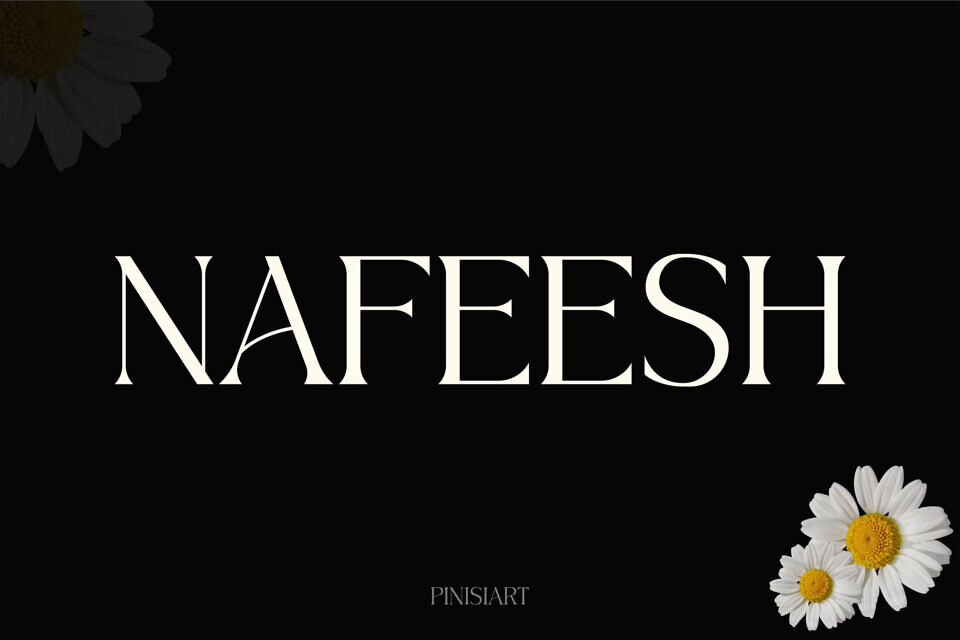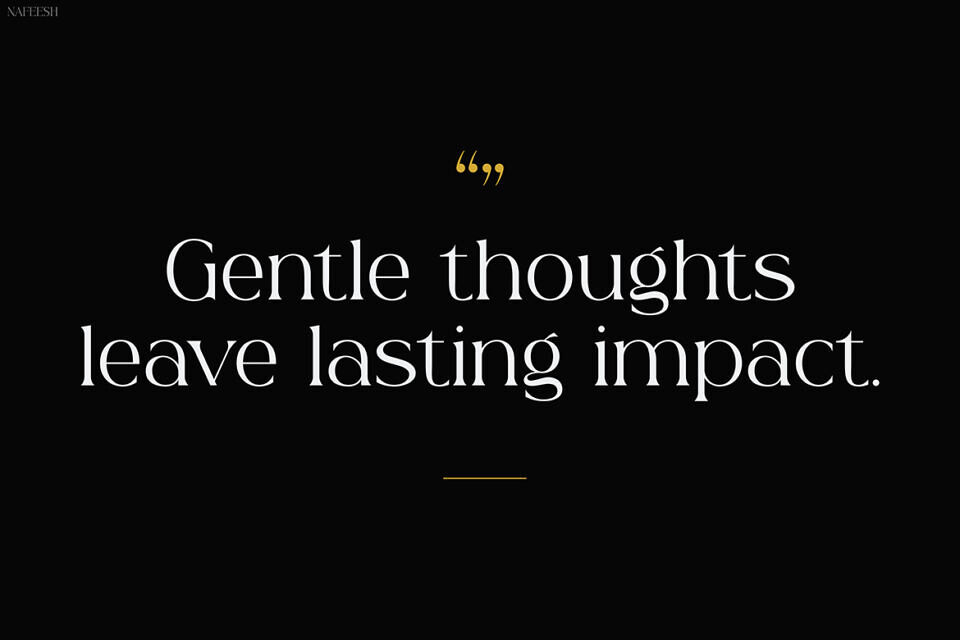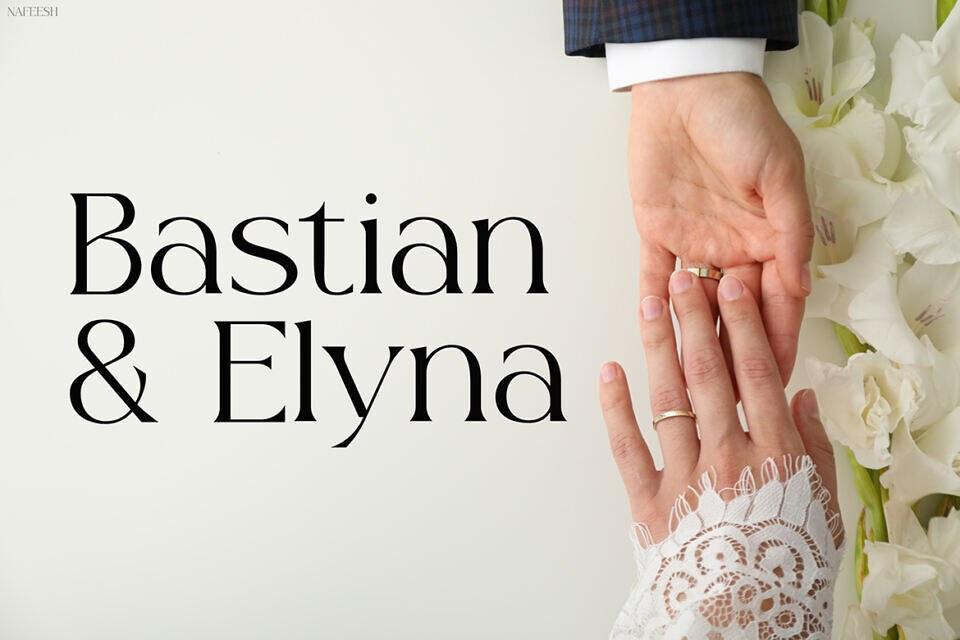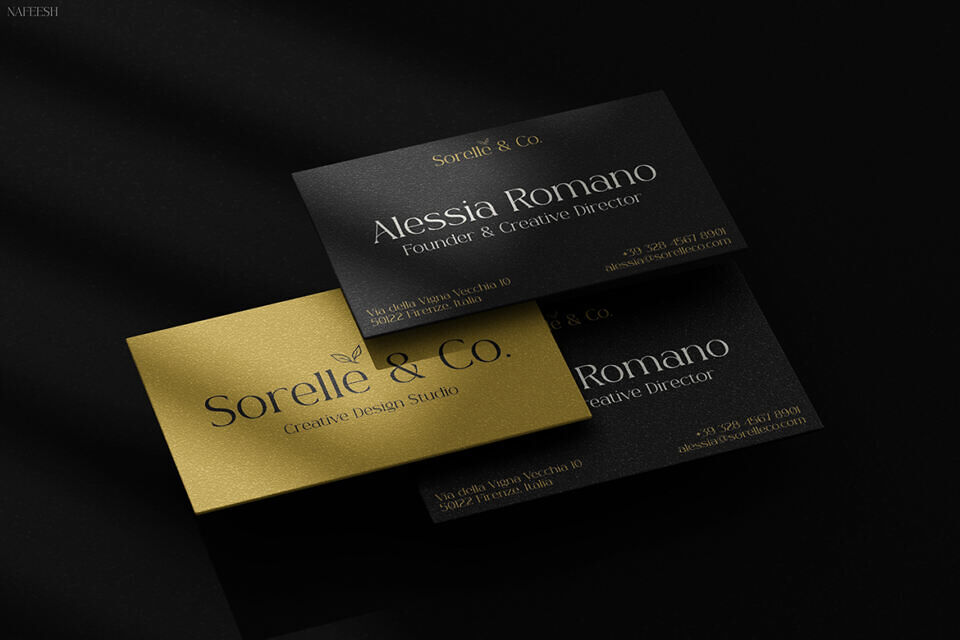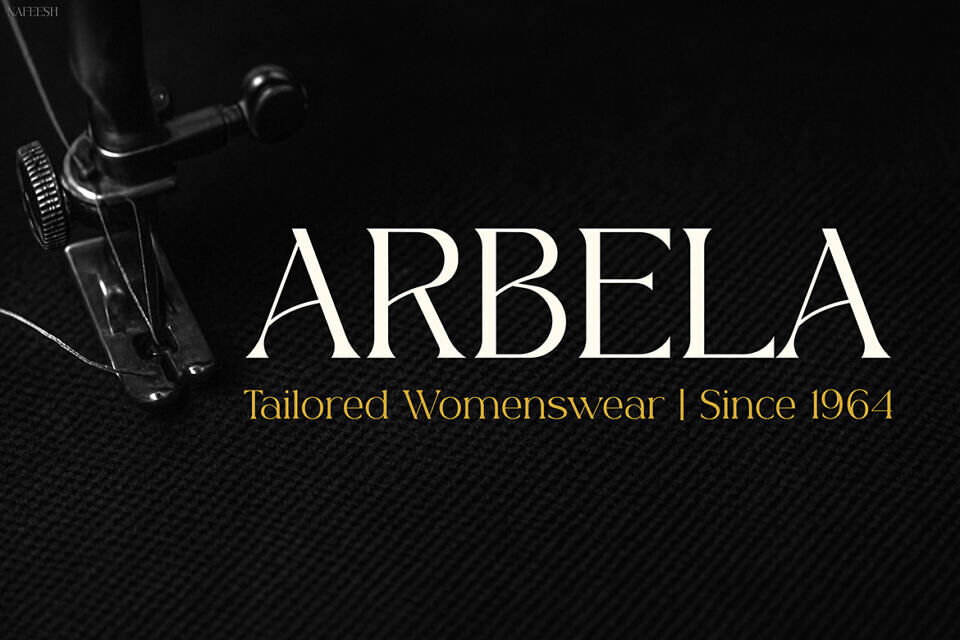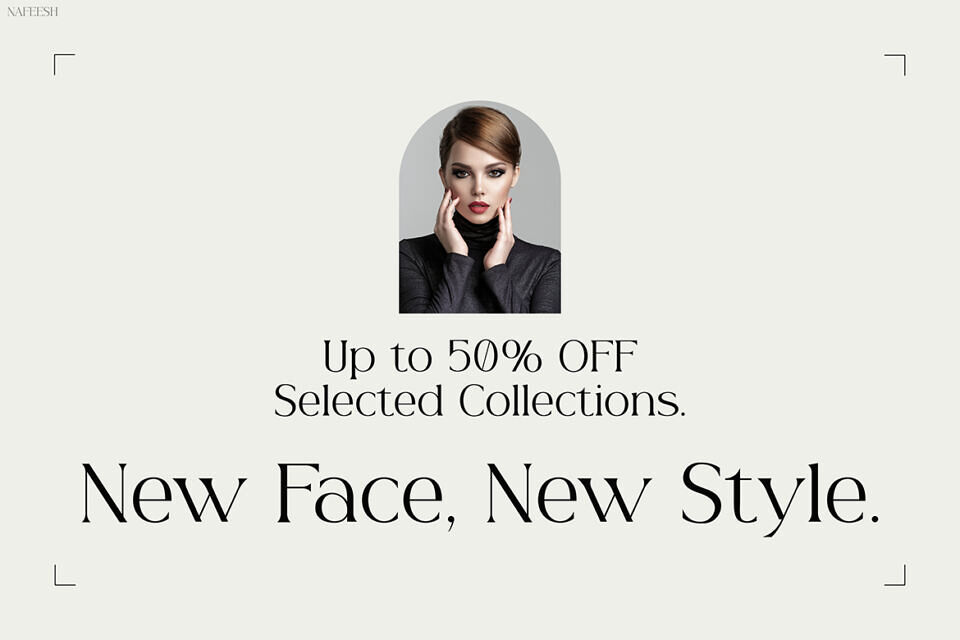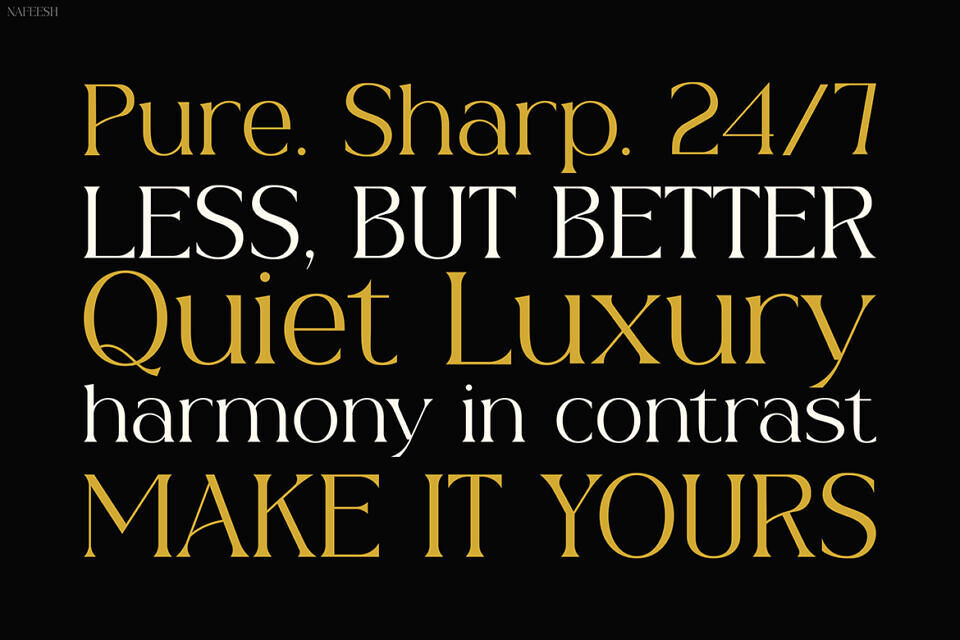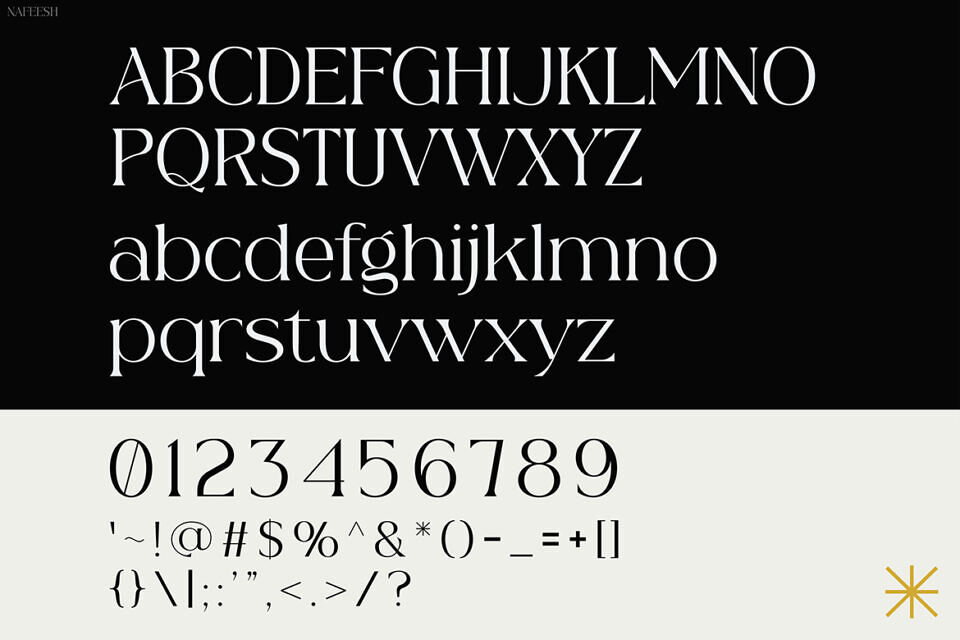
Nafeesh Font
Nafeesh is a refined serif font that blends timeless elegance with a clean, modern touch. Featuring high-contrast strokes, graceful curves, and structured forms, it adds sophistication to any design. Highly legible and versatile, it works beautifully for headlines, subtexts, and premium layouts.
Ideal for fashion, beauty, branding, or wedding content, Nafeesh adapts effortlessly to muted tones, bold accents, or minimalist themes. With full uppercase, lowercase, numerals, and punctuation support, it suits everything from Instagram carousels to product packaging—making a soft yet striking impression wherever it’s used.